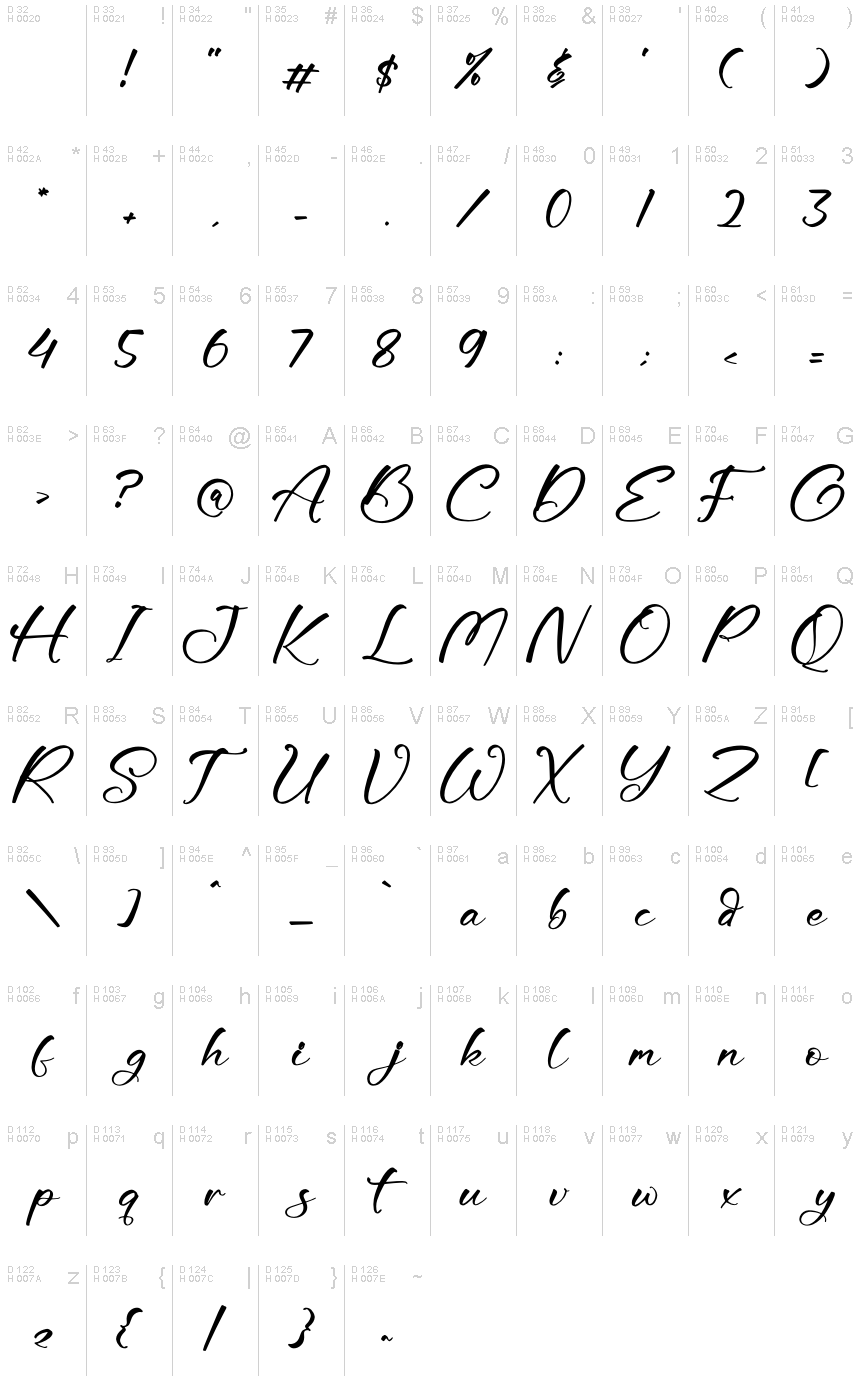
Goldtime Selindry by Letterena Studios embodies the elegance and fluidity of handwritten script, making it a standout choice for any design seeking a touch of sophistication. Its sweeping curves and graceful lines evoke a sense of artistry, capturing the essence of classic calligraphy with a modern twist. The font's visually striking features, such as its flowing strokes and balanced proportions, create an inviting and personalized feel.
Perfect for branding projects, wedding invitations, logos, or social media graphics, Goldtime Selindry adds a touch of timeless beauty to any context. Its unique charm makes it versatile enough to enhance both formal and casual designs. Whether used for headlines or accentuating special elements within your project, Goldtime Selindry promises to leave a lasting impression with its refined aesthetic appeal.